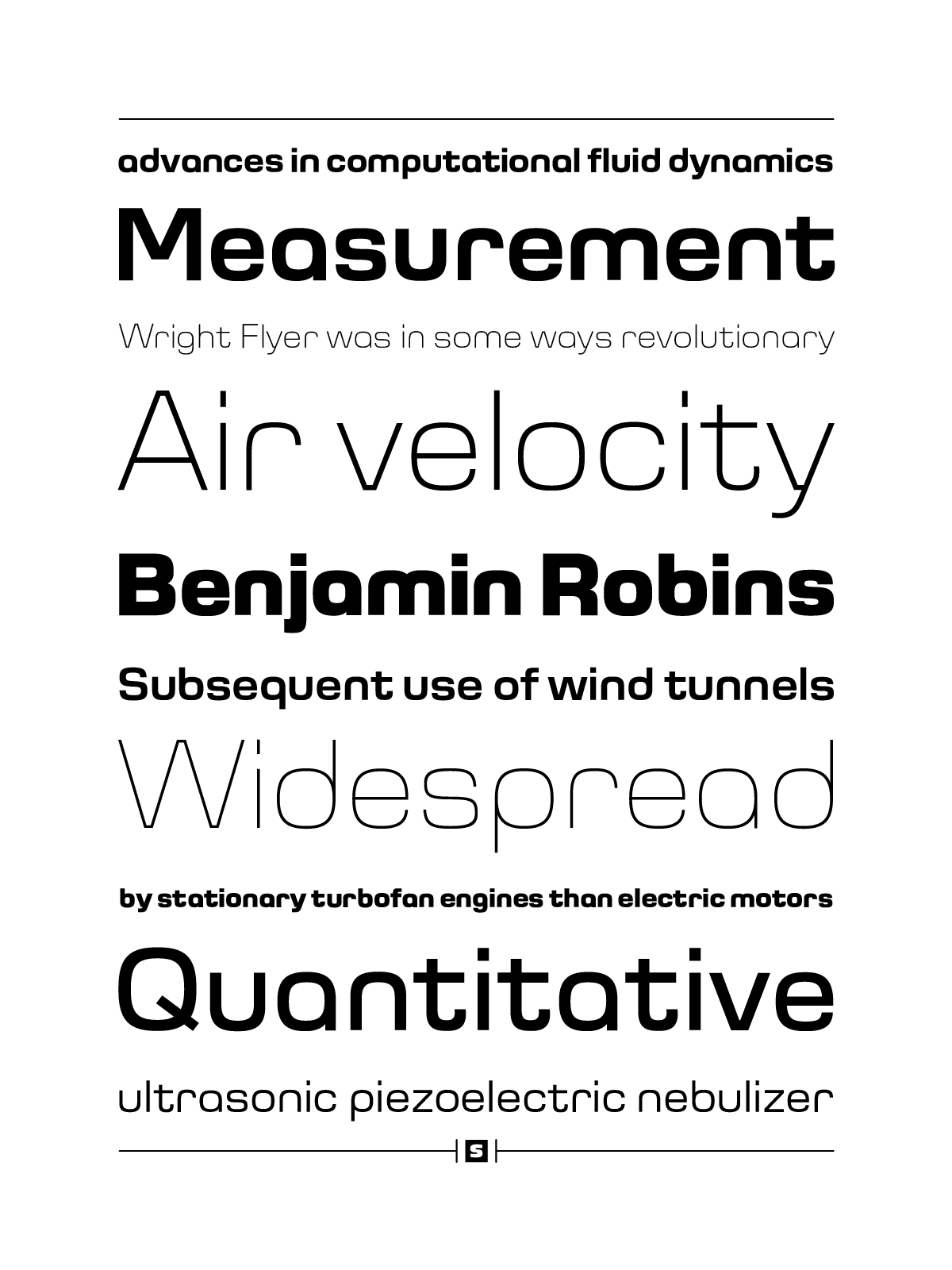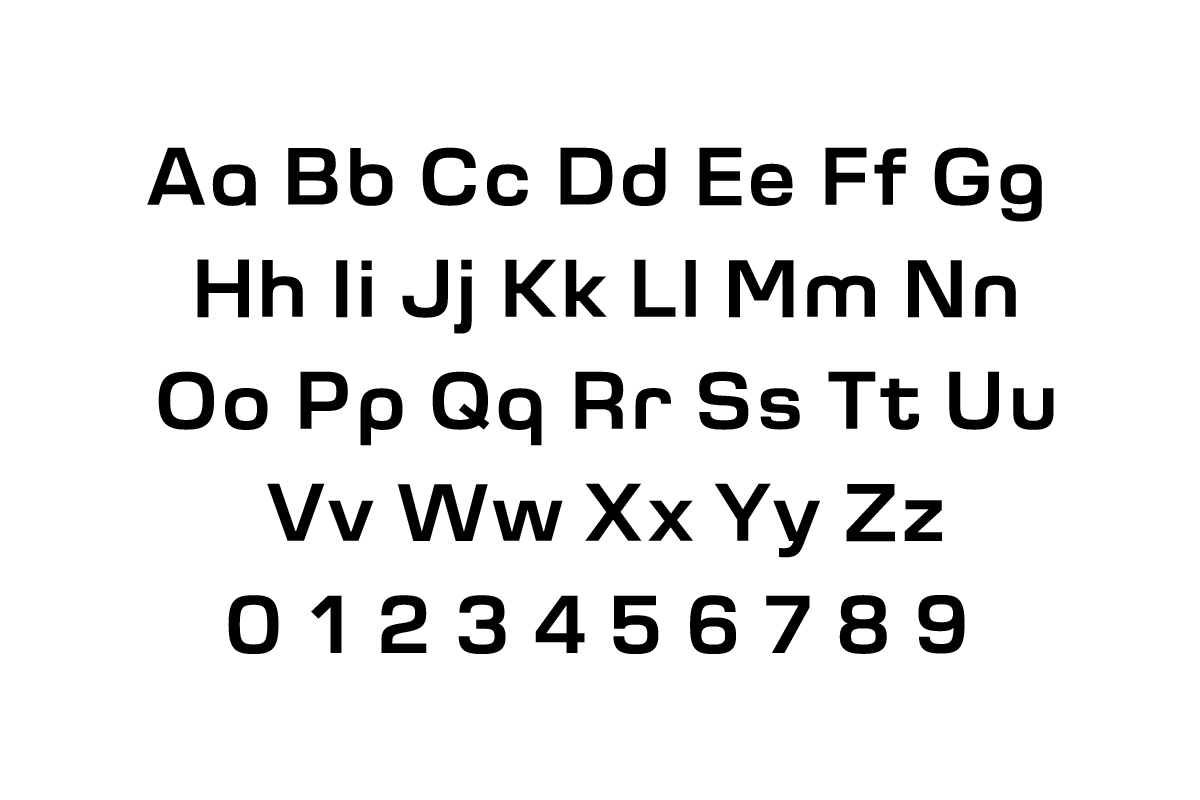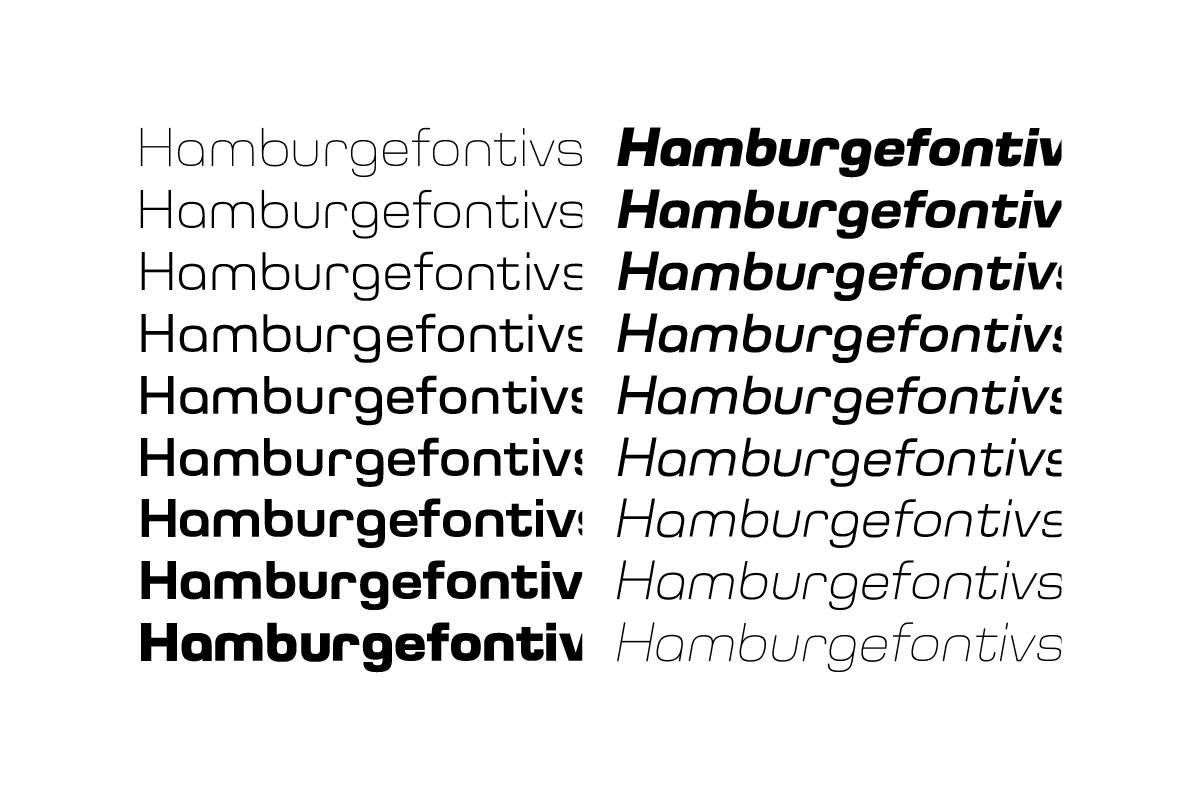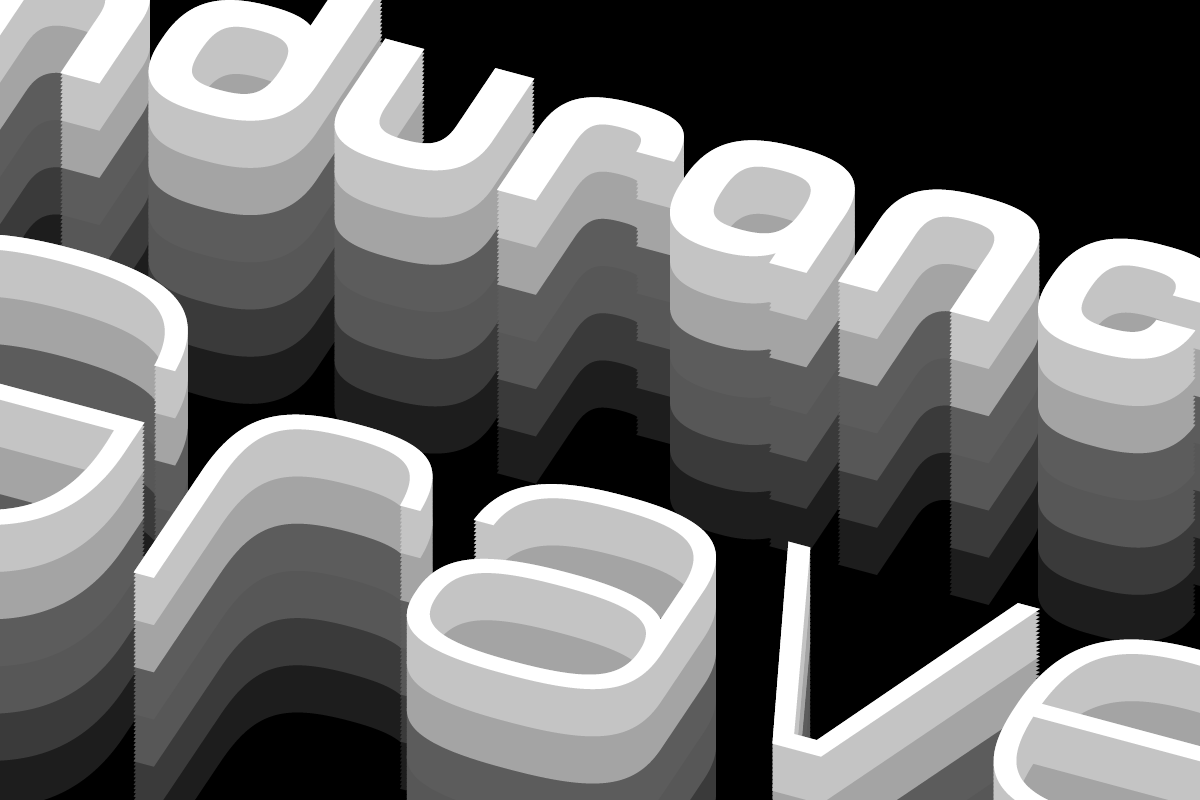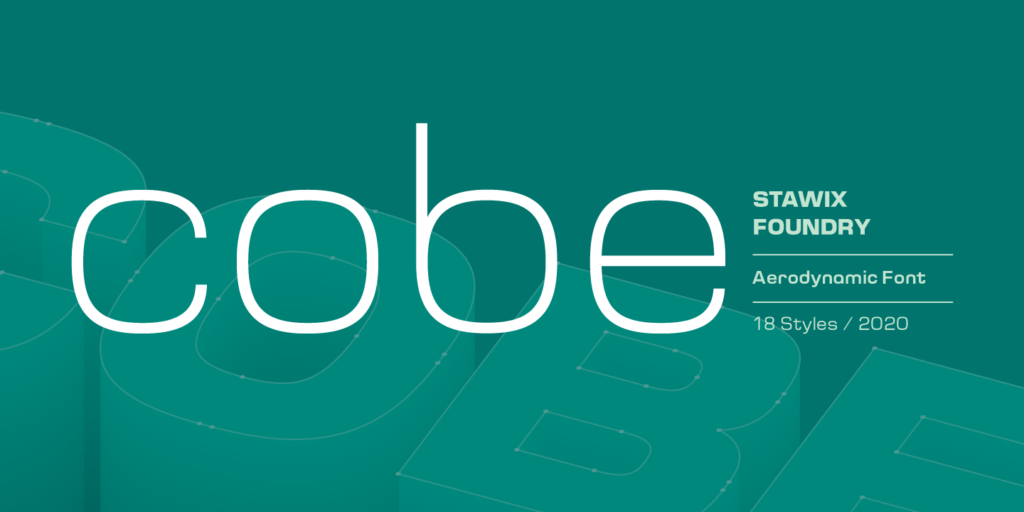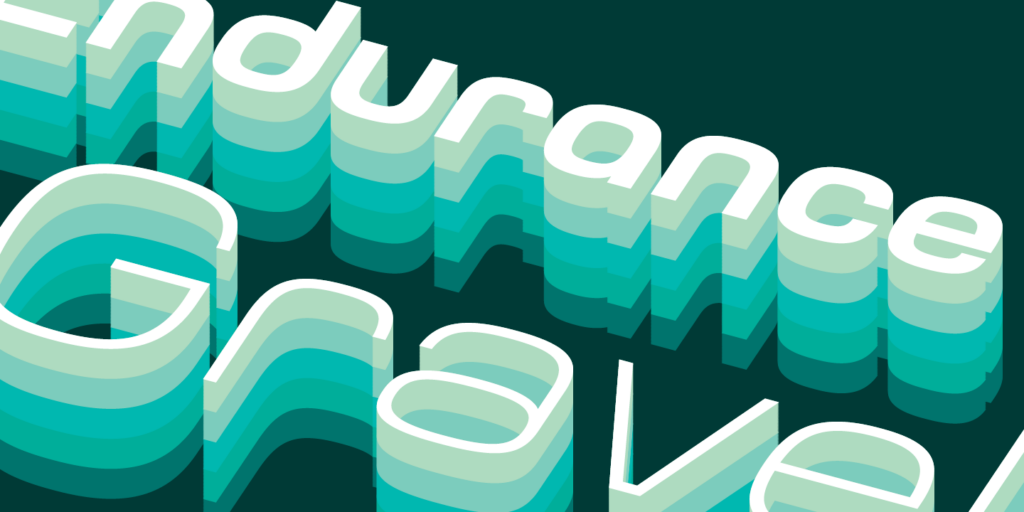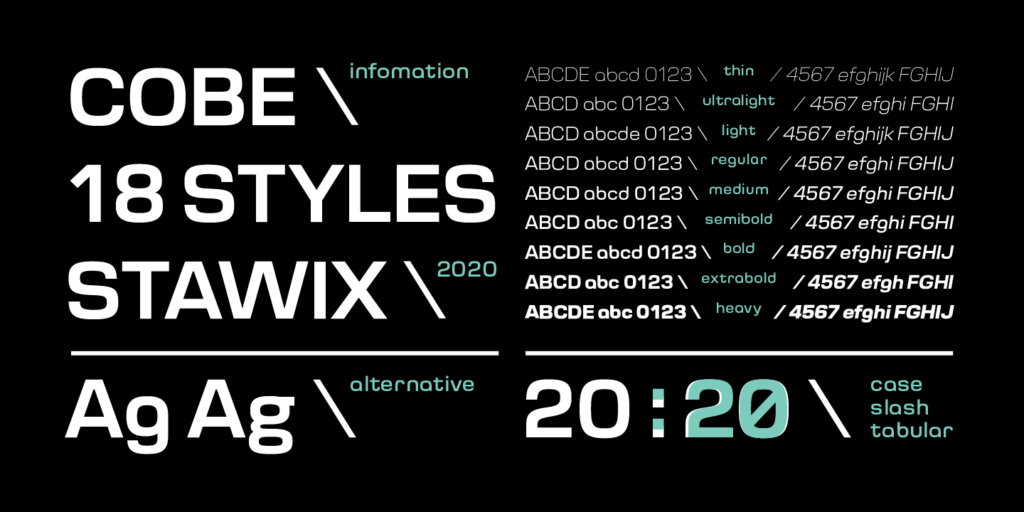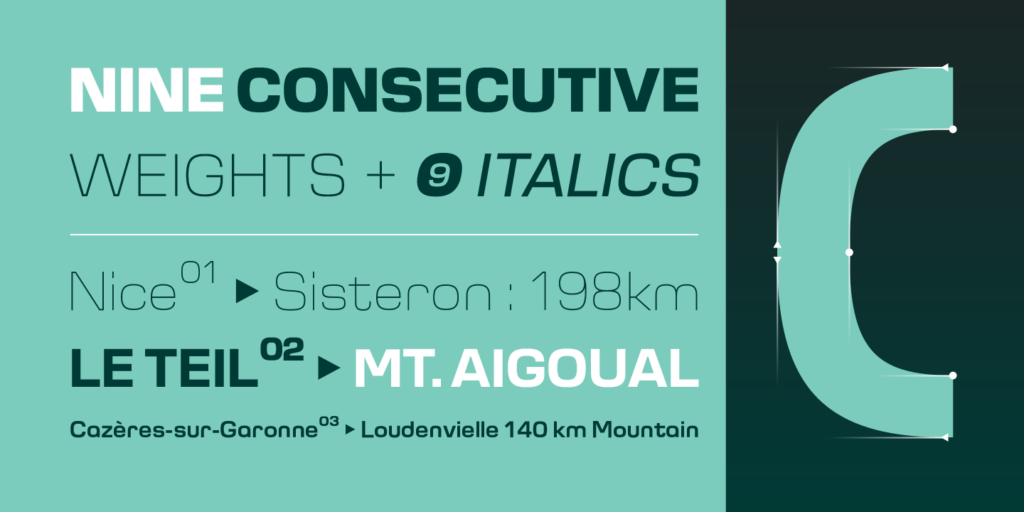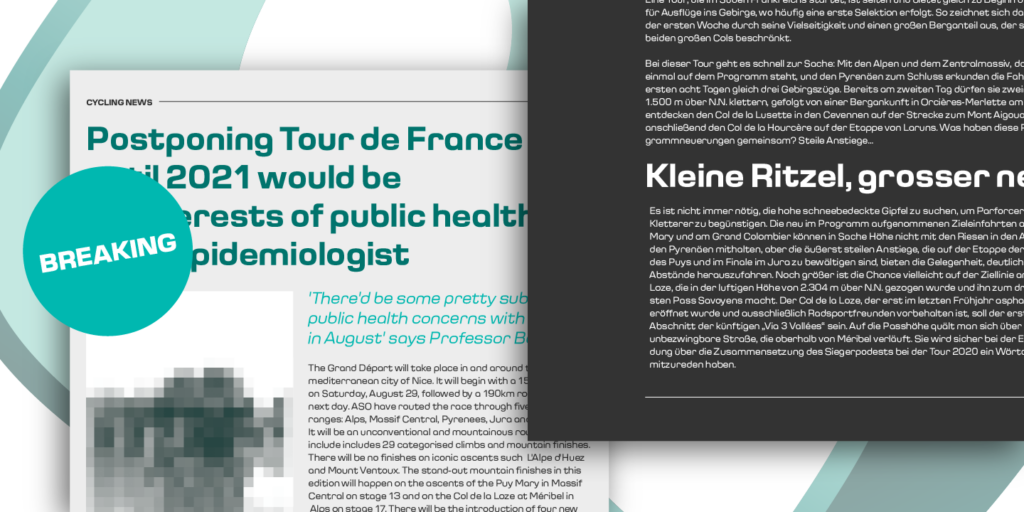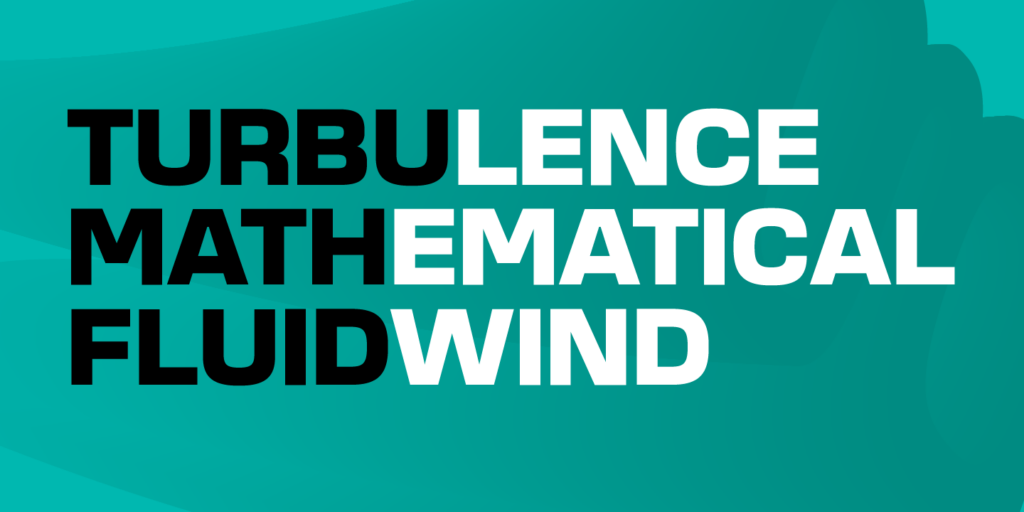
Modern forms move with a smooth rhythm while keeping every line firmly structured.
The result of reducing elements of letterforms to only its necessity in lowercase is mostly influenced by the ideal of Aerodynamics. The true intention behind the design of Cobe is to construct a fluid typeface while maintaining a strong structure of uppercase that possessed distict forms, shapes and corners, resulting in an eye-pleasing texture when forming a sentence. Cobe comes in 9 consecutive weights with italics and standard features.